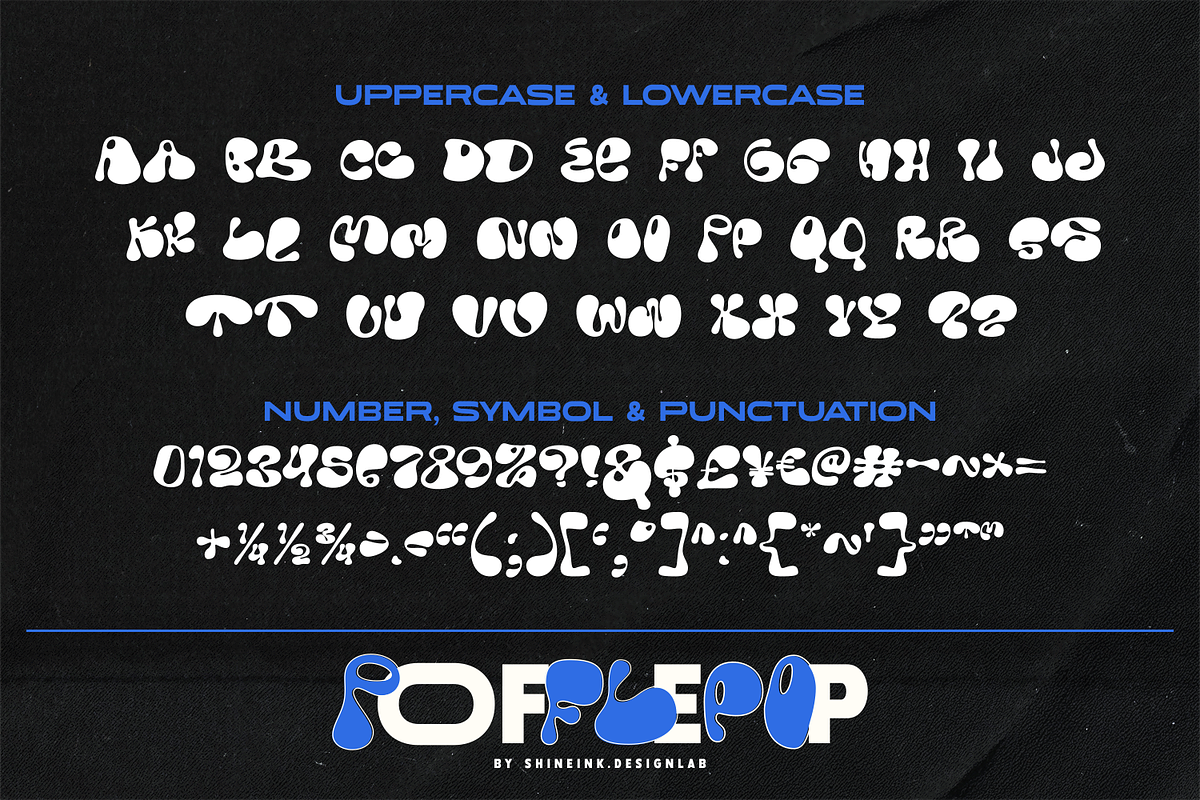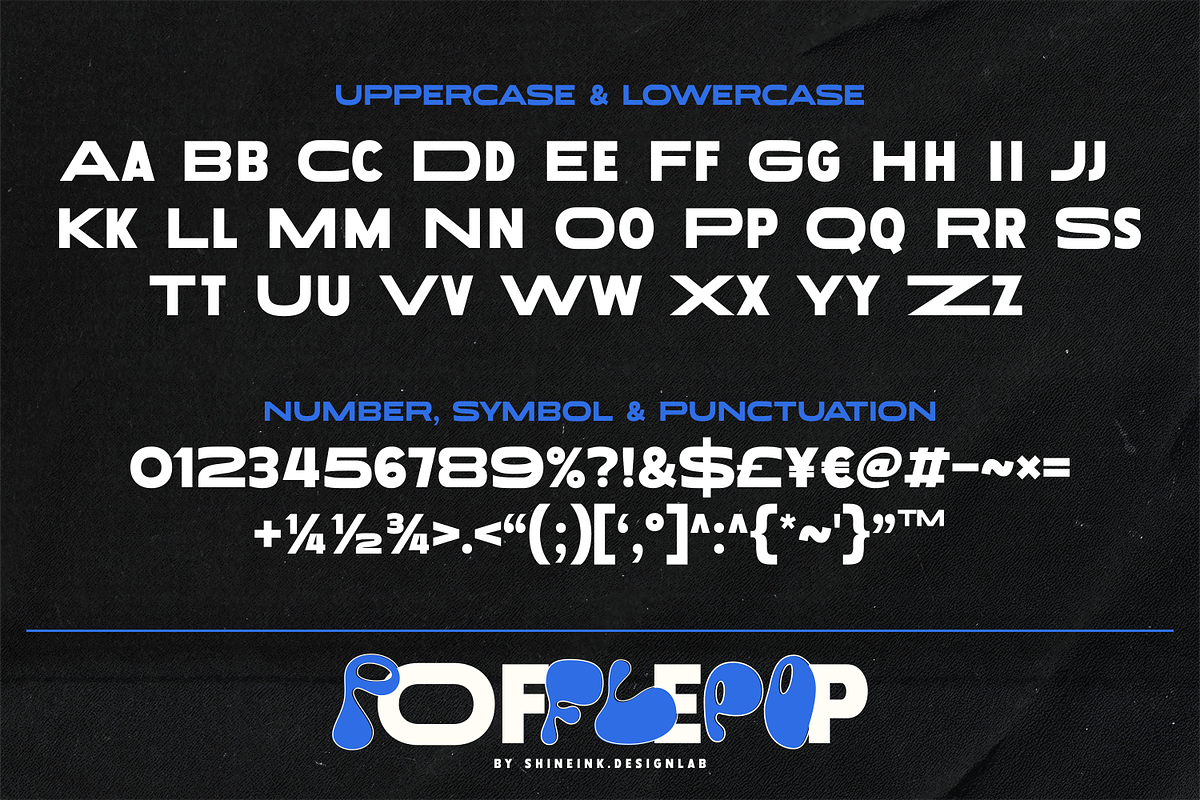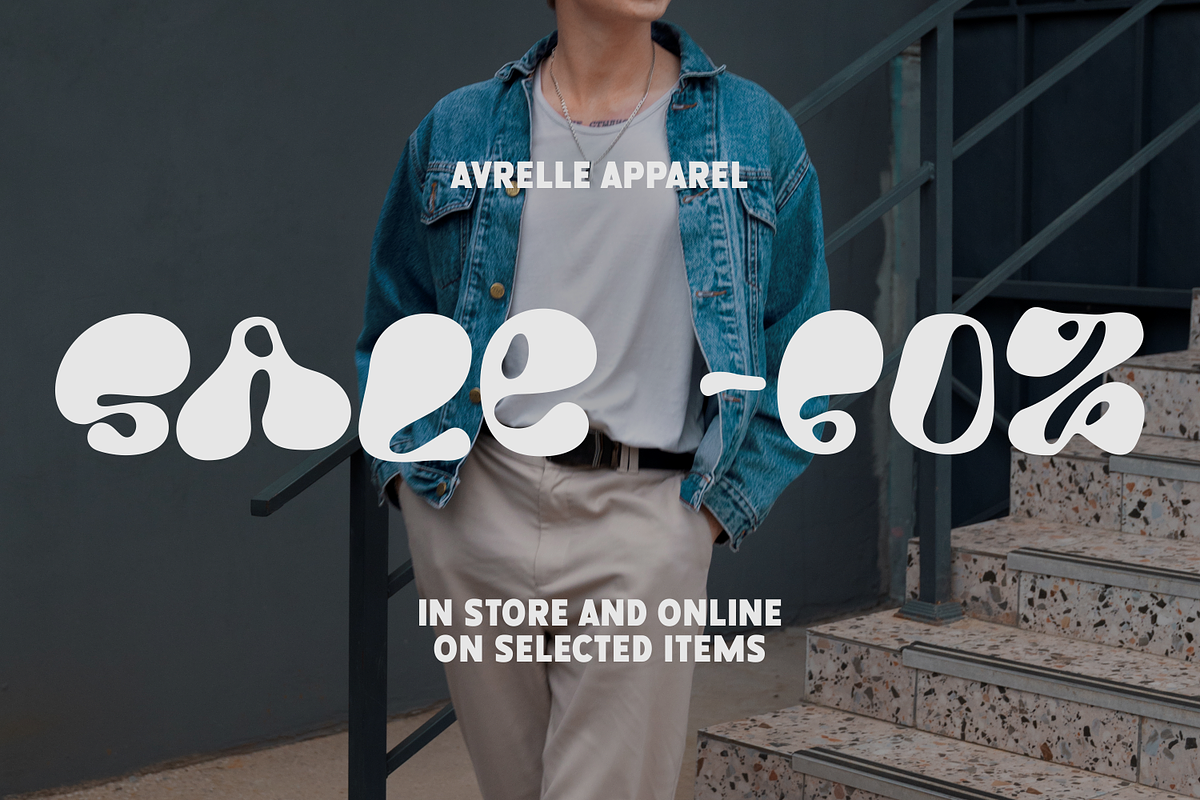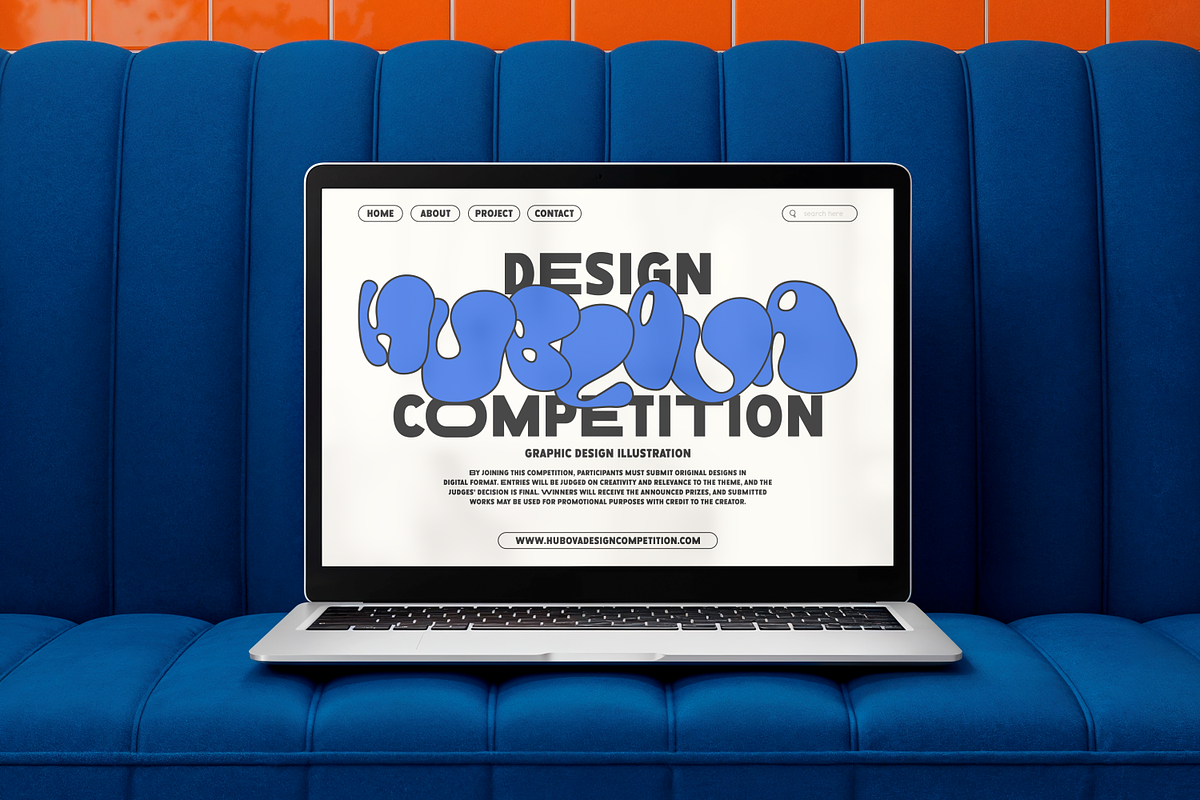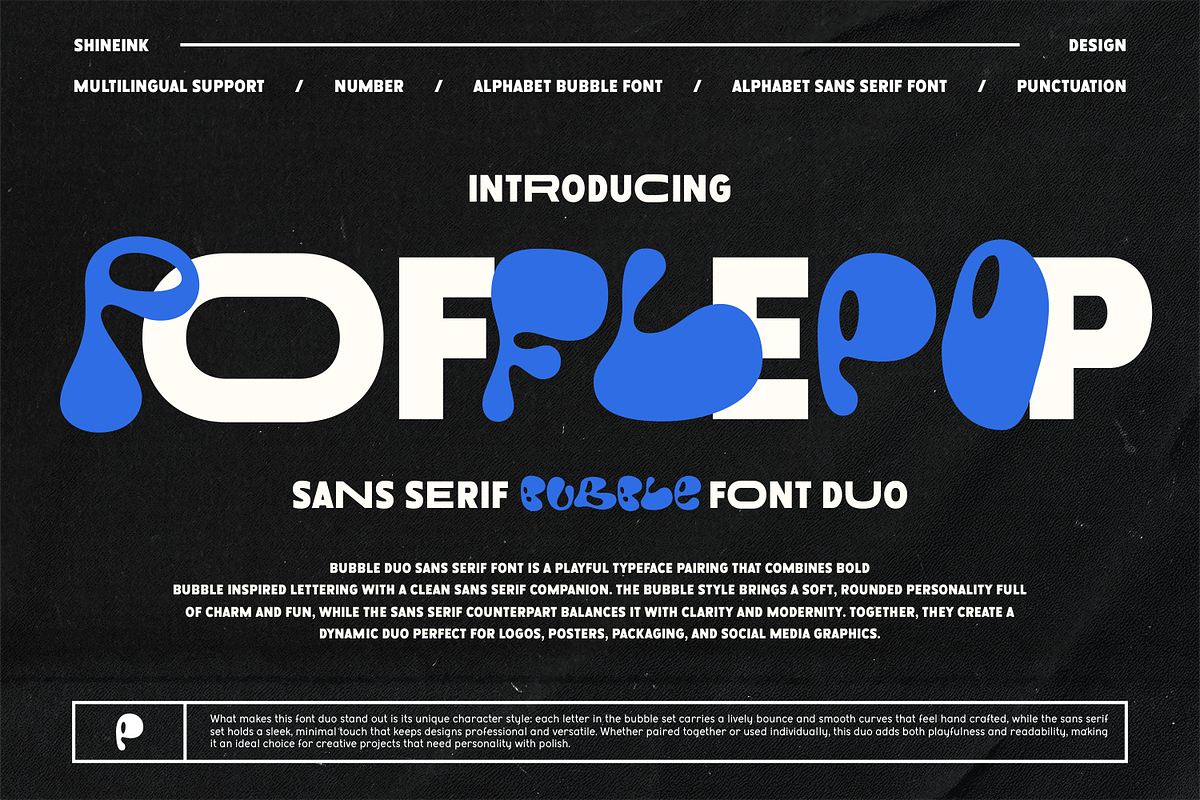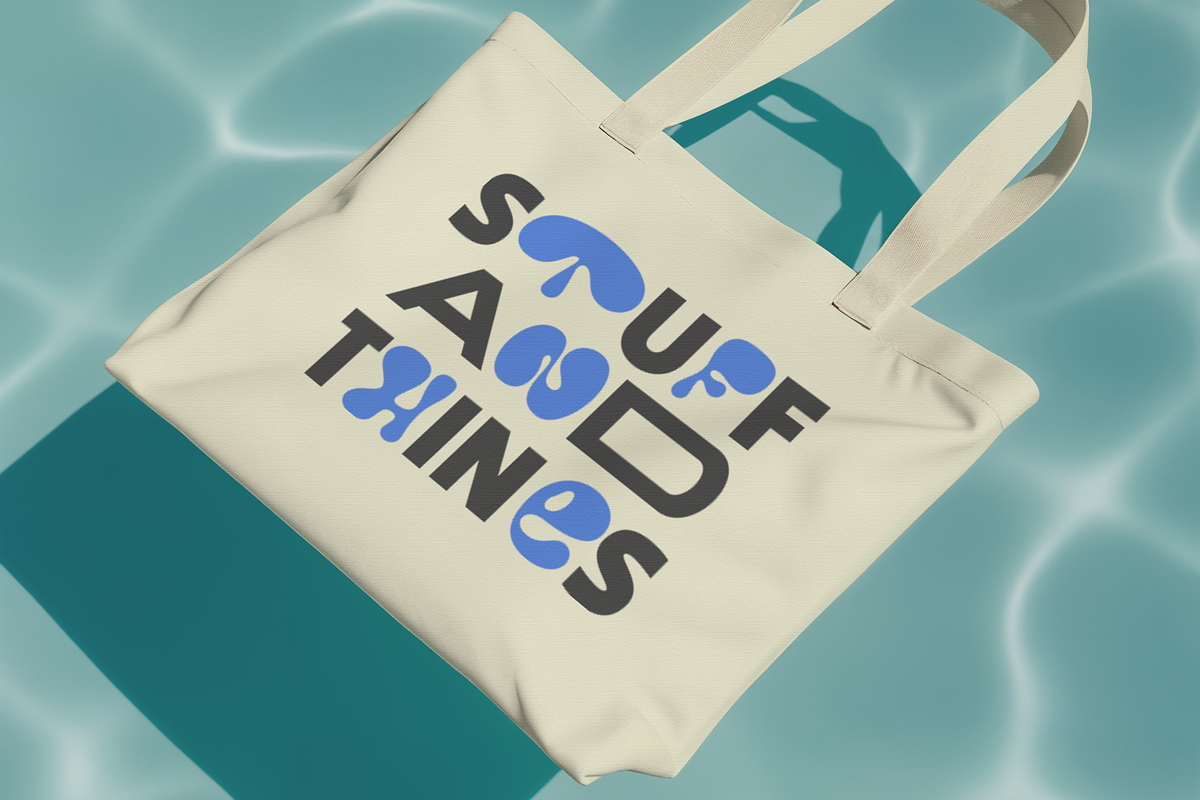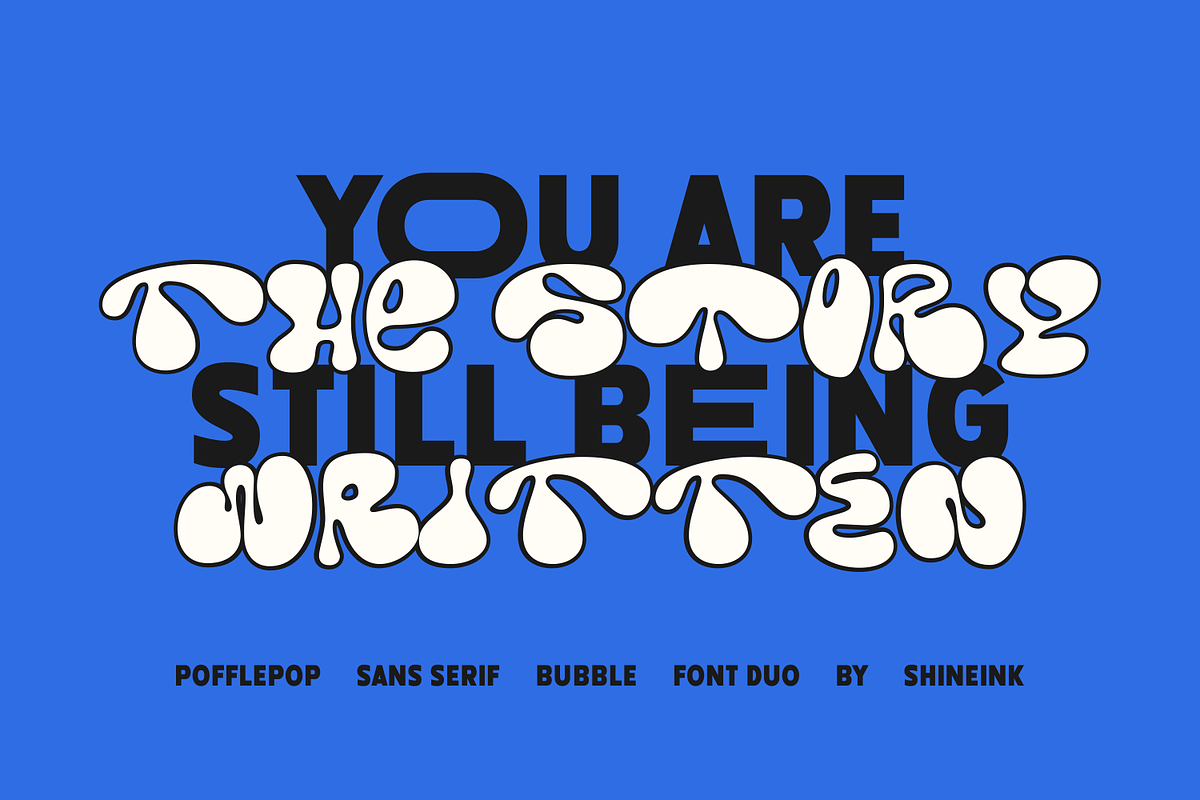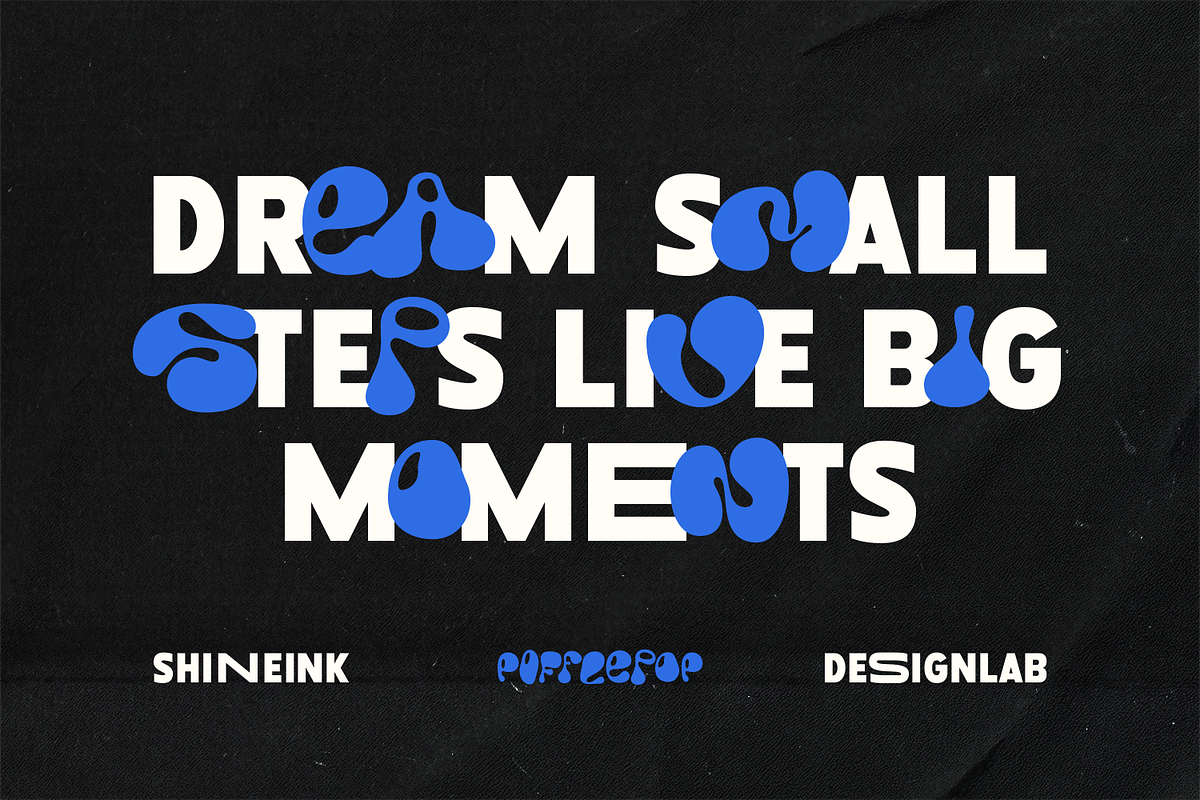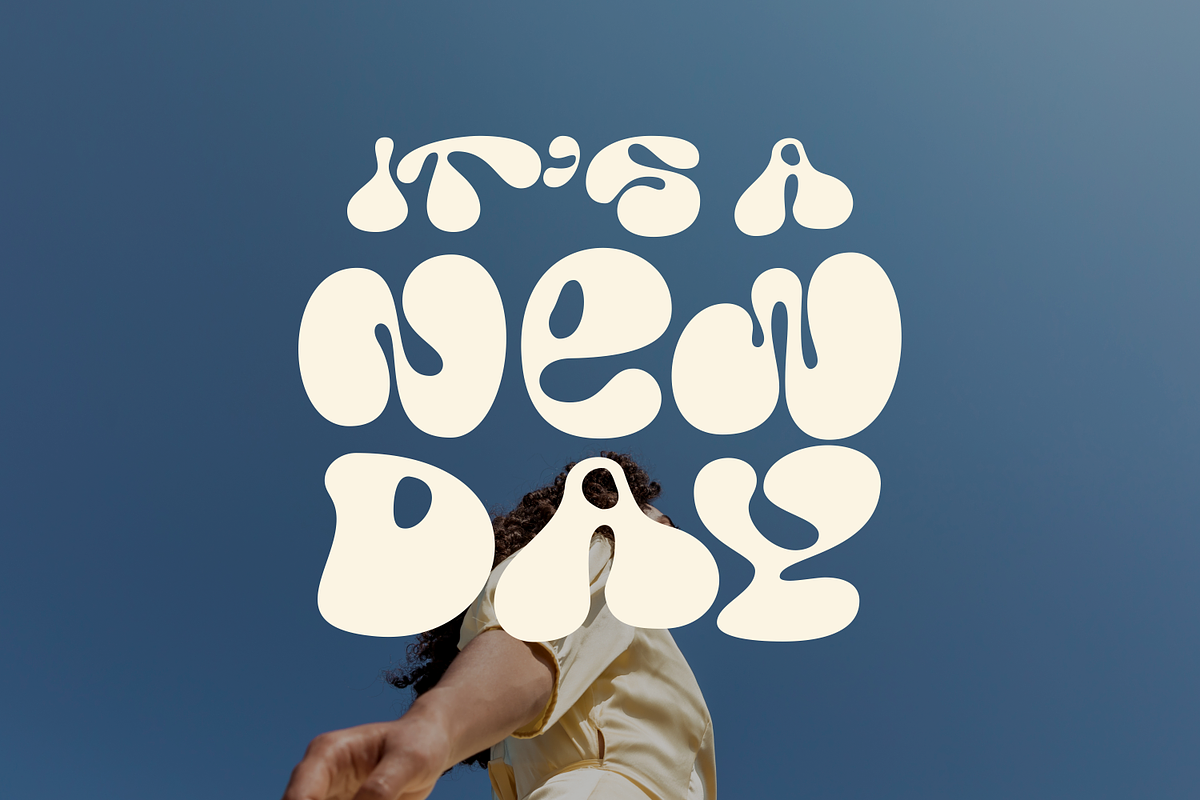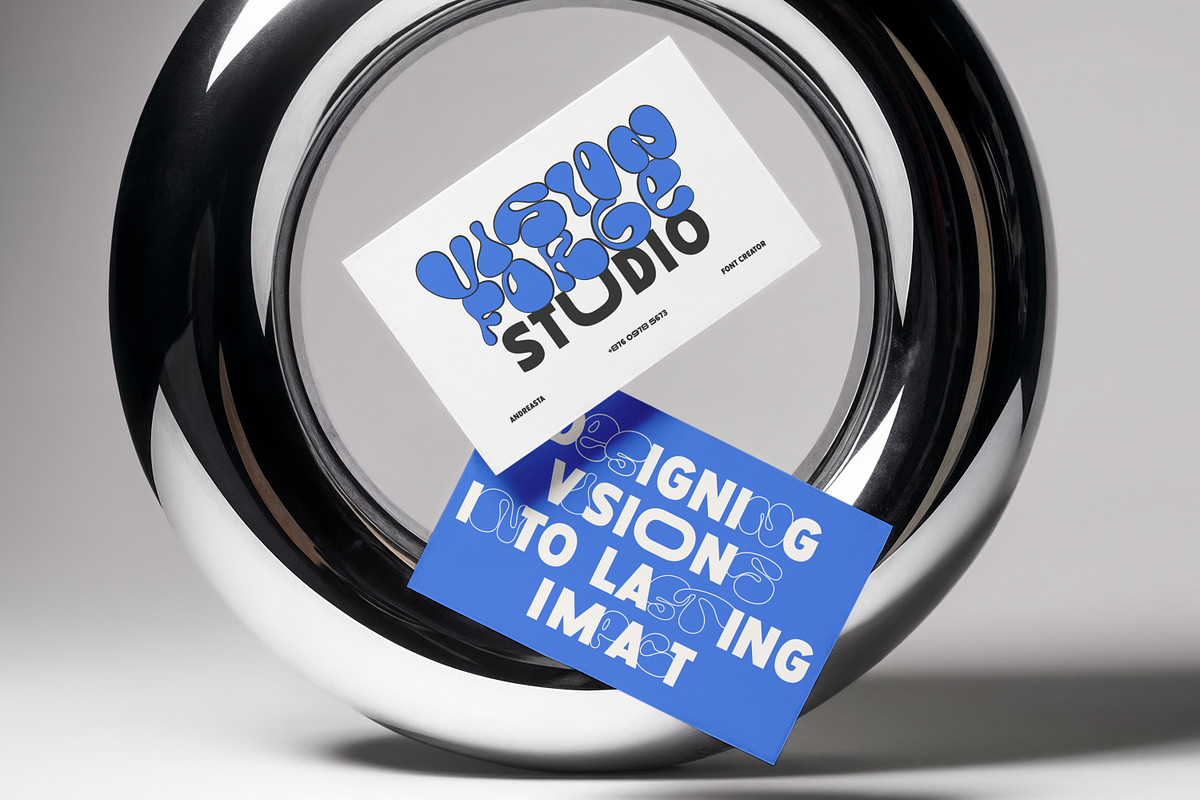
Pofflepop
I'm present to you, a bubble combine sans serif typeface, called Pofflepop!
Bring a touch of fun, modern charm, and bold personality to your designs with Pofflepop, a unique typeface duo that perfectly blends a playful bubble style with a clean sans serif companion.
Pofflepop is a versatile and dynamic font duo designed to make any creative project stand out. From logos, posters, and packaging to social media graphics and branding, this font adds a lively, eye-catching feel without sacrificing readability.
With its organic curves and clean geometric forms, Pofflepop delivers a perfect mix of creativity and versatility, making it ideal for brand identity & logo design, product packaging, posters & headlines, social media content, merchandise & greeting cards.
- Lowercase and Uppercase
- 2 Style Fonts
- Multiple Languages Supported